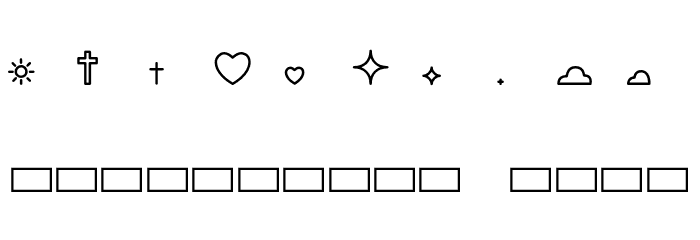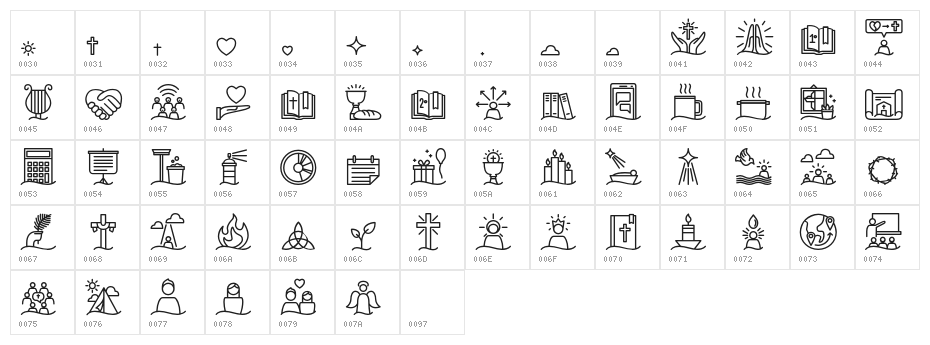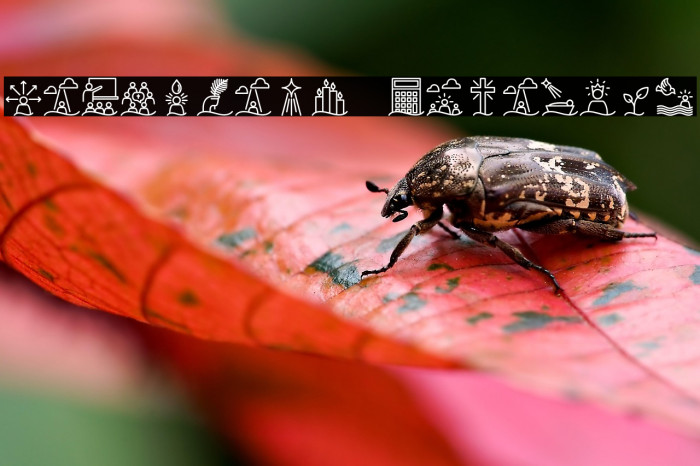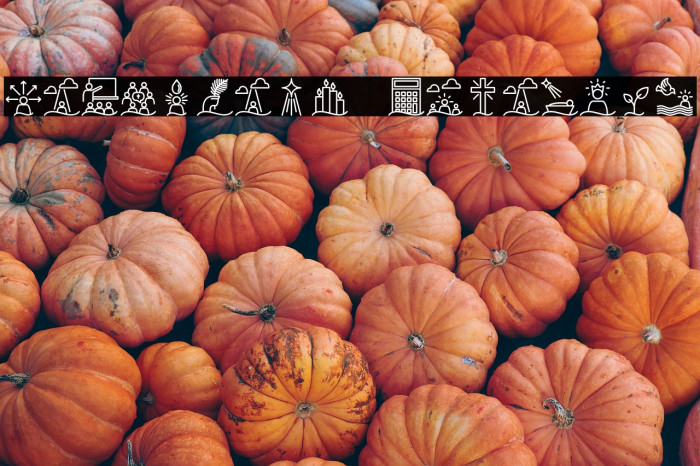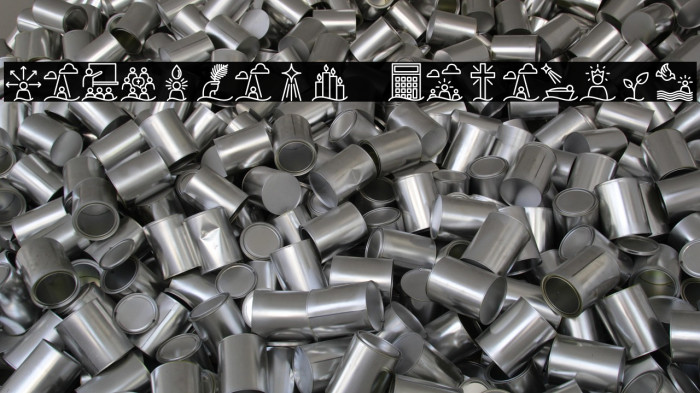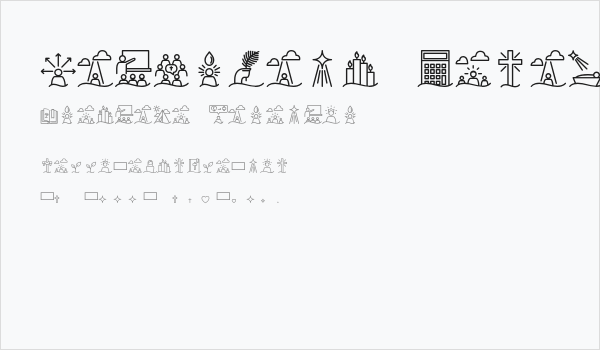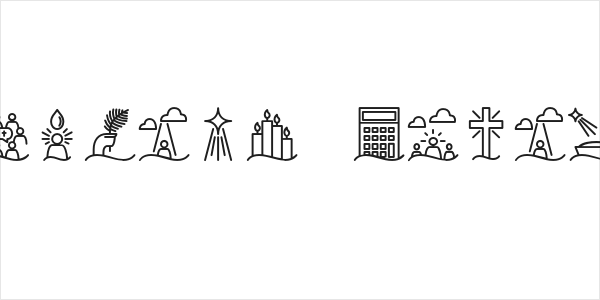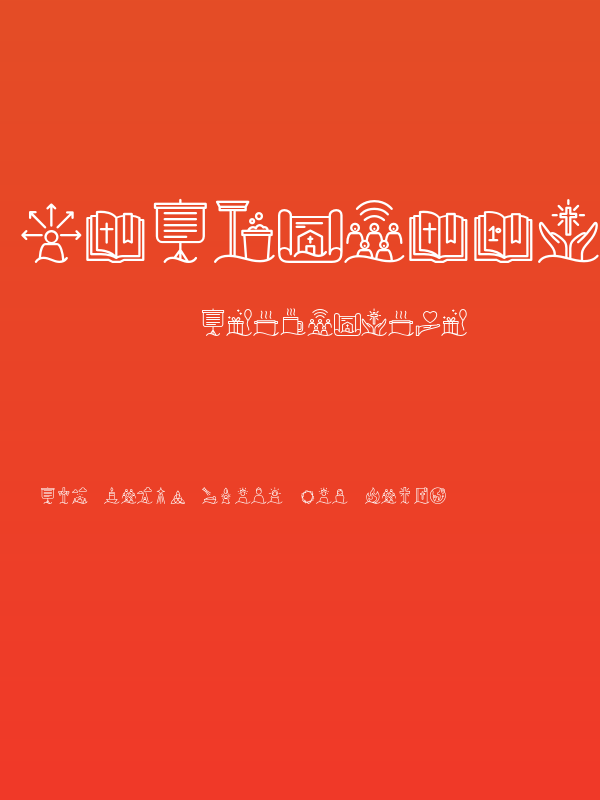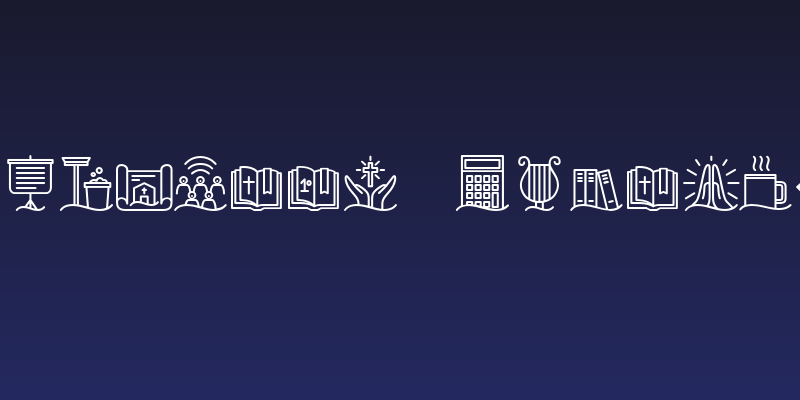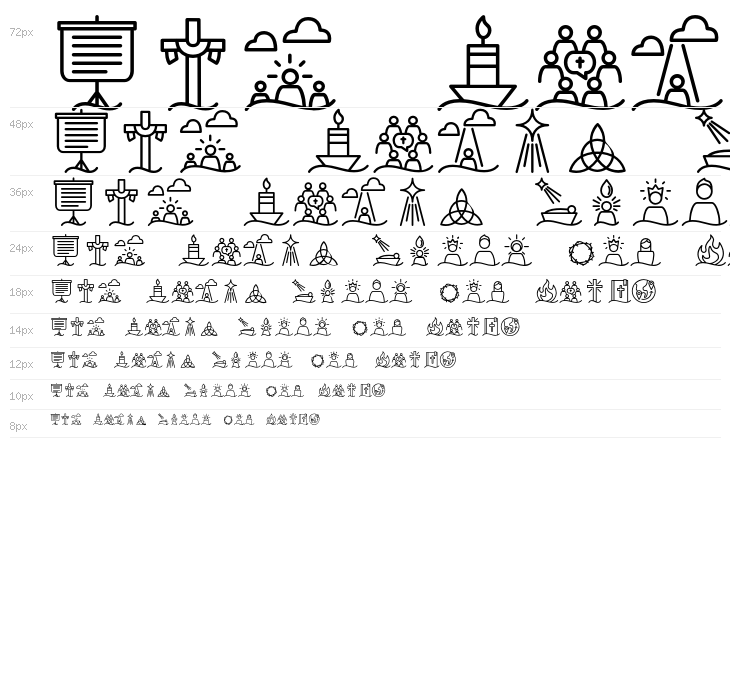
Liturgica Semibold Font
Liturgica Semibold Description
A decorative icon set featuring thin, monoline religious and community-themed illustrations, including symbols like crosses, books, candles, people, and nature elements, all unified by a consistent baseline and minimalistic style.
| Overall Style | Decorative, Minimal, Modern |
| Use Case | Icons, Illustrations, Thematic dividers, Visual accents |
| Proposed Projects | Church bulletins, event flyers, religious educational materials, community outreach graphics, digital worship slides. |